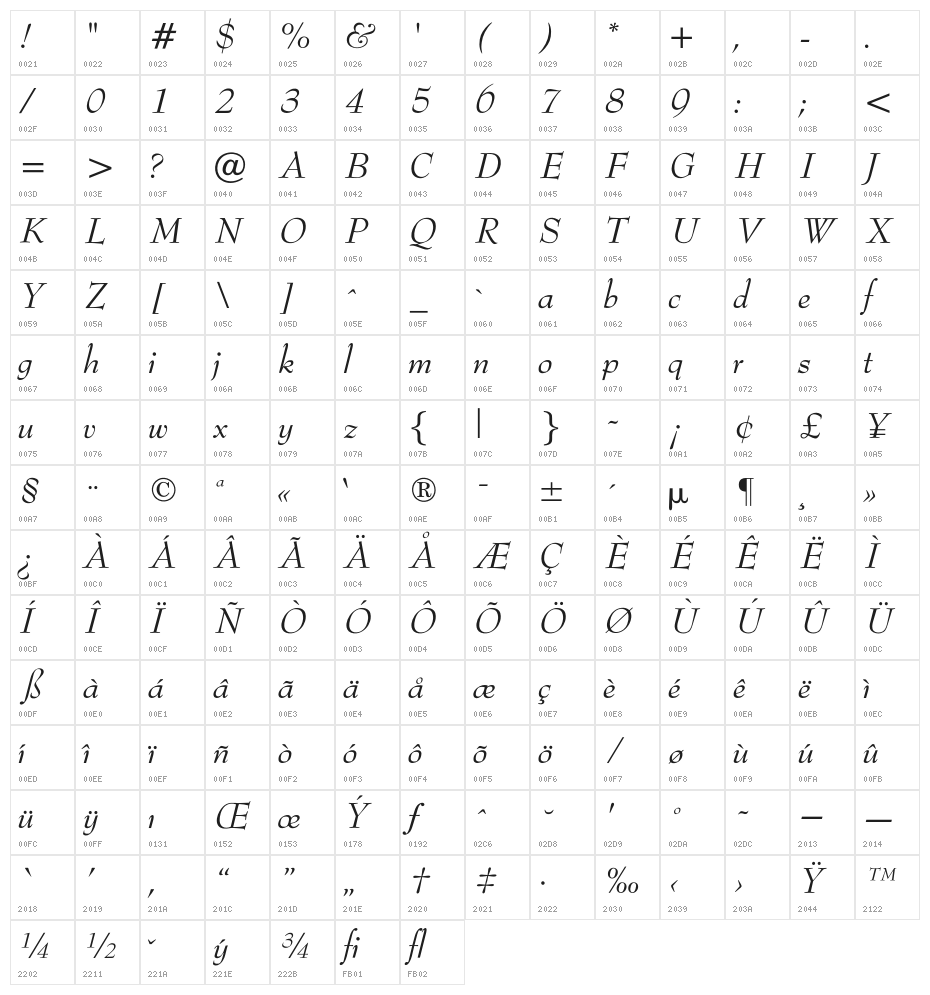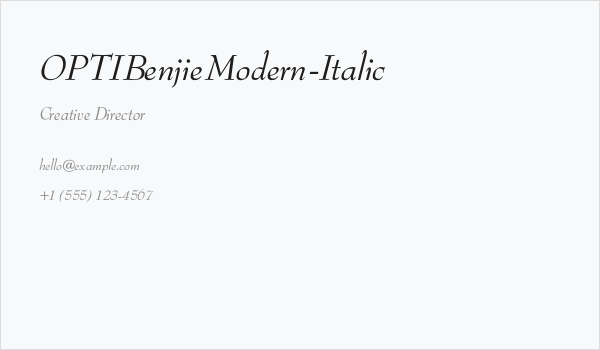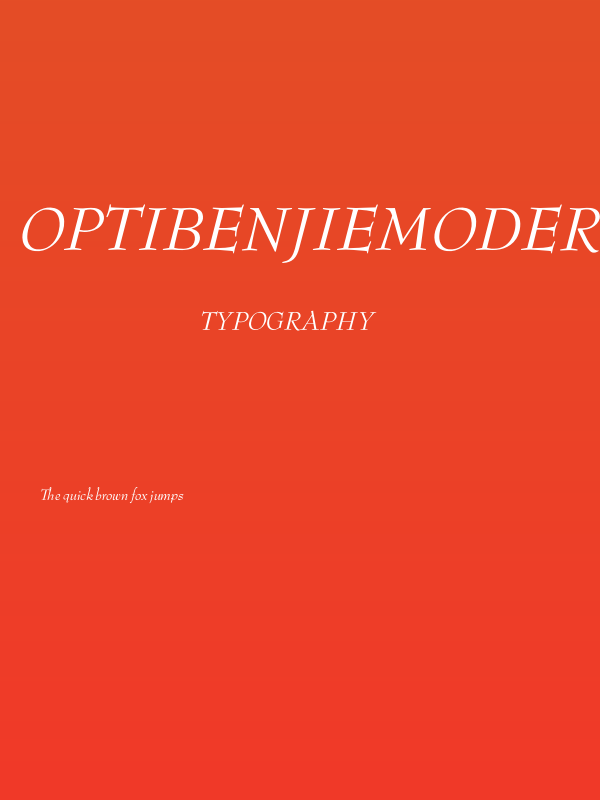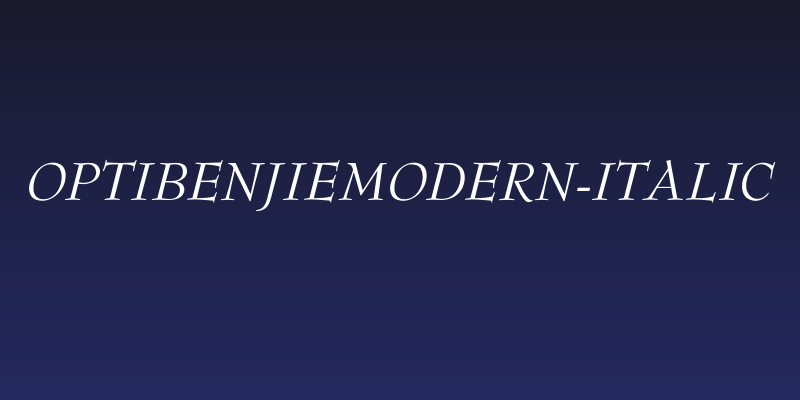
OPTIBenjieModern-Italic Font
OPTIBenjieModern-Italic Description
This font exhibits a classic and elegant style with a modern twist. The italicized characters add a sense of motion and sophistication, making it suitable for formal and creative applications. The uppercase letters are tall and slightly narrow, while the lowercase letters maintain a consistent flow with smooth curves and sharp serifs. The numerals are well-proportioned, aligning seamlessly with the overall design. Special characters are crafted with attention to detail, enhancing the font's versatility. The stroke contrast is medium, providing a balanced appearance that is both readable and aesthetically pleasing.